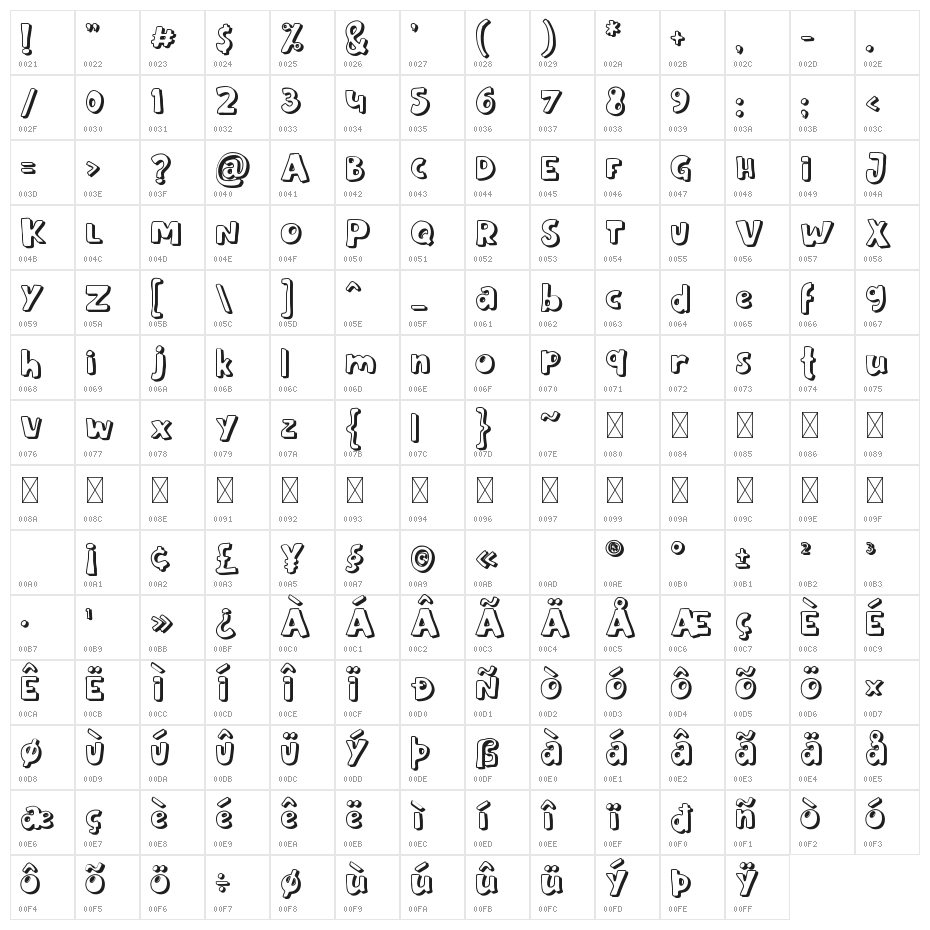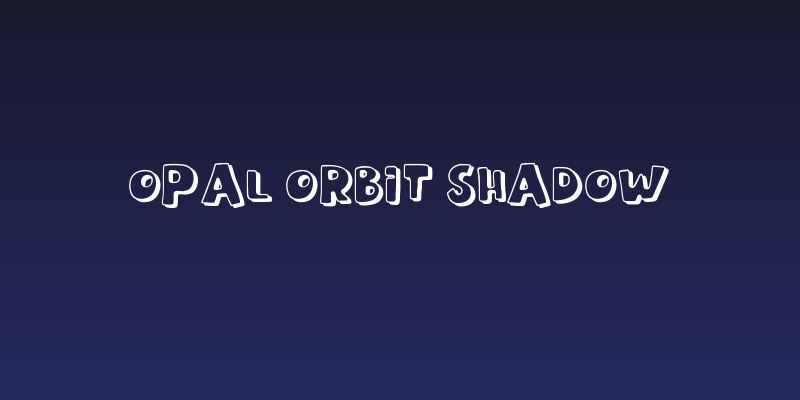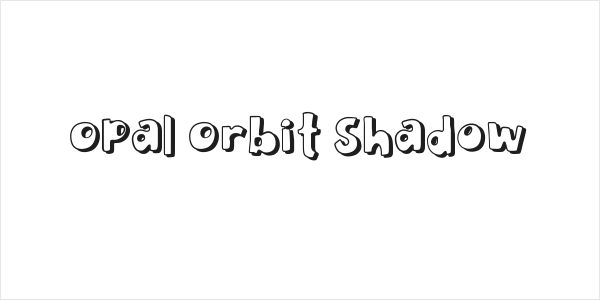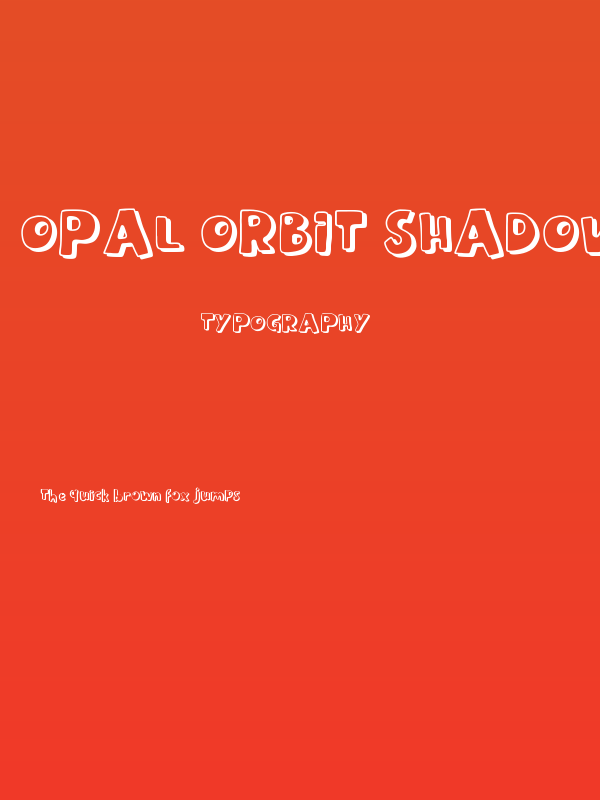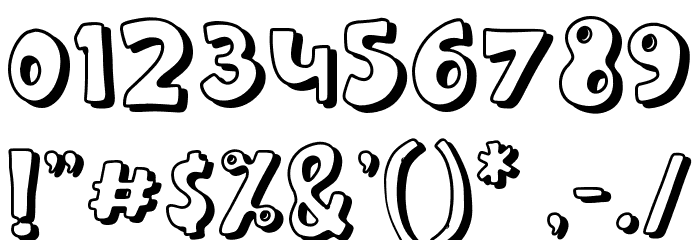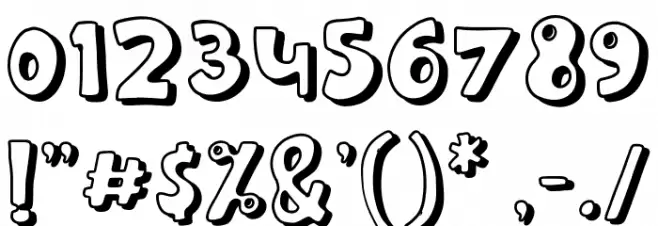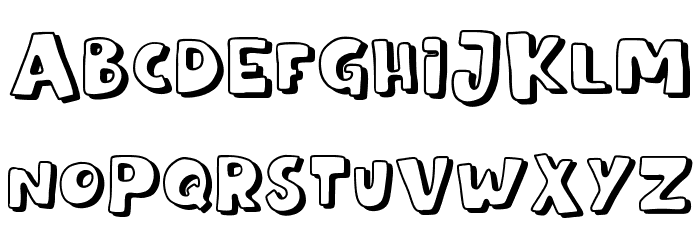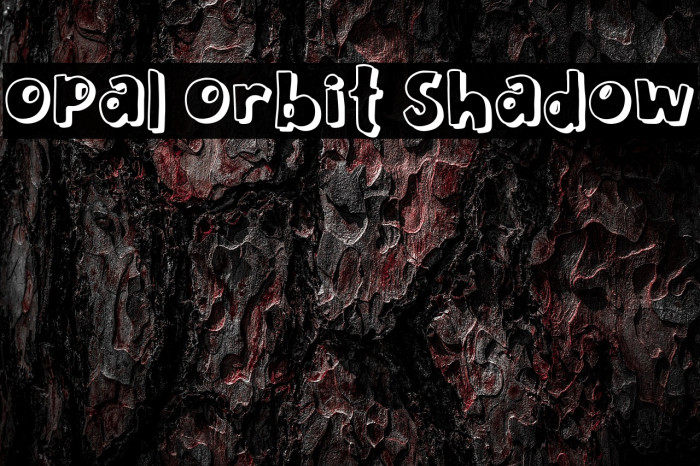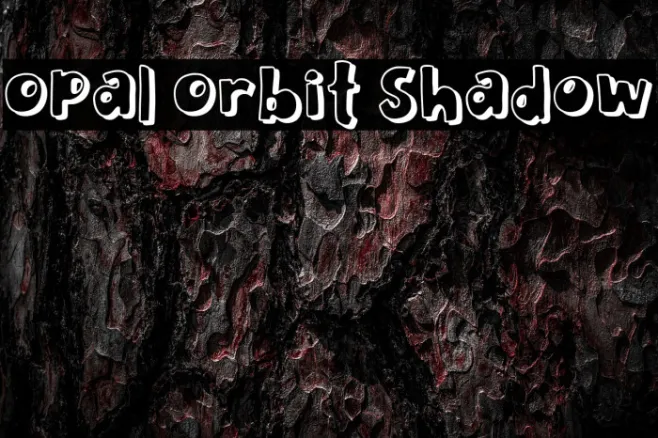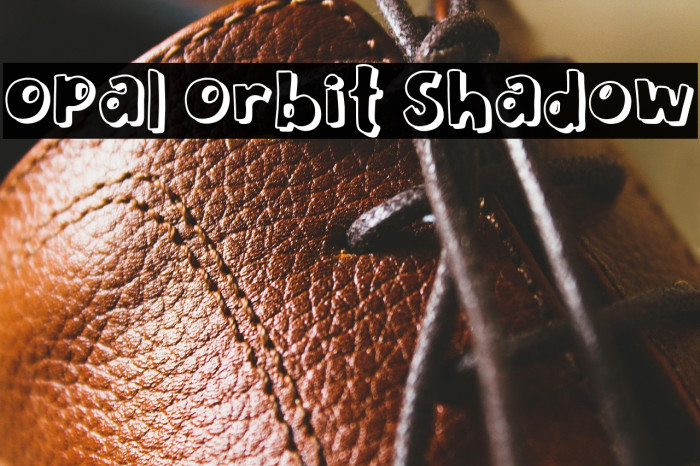
Opal Orbit Shadow Font
Opal Orbit Shadow Description
This playful and bold font features a shadow effect that gives it a three-dimensional appearance. The characters are rounded and slightly irregular, adding a whimsical and fun vibe. The uppercase and lowercase letters maintain a consistent style, with thick strokes and a bold presence. The numbers and special characters follow the same design, ensuring a cohesive look across all text elements. This font is perfect for projects that require a lively and engaging aesthetic.
| Proposed Projects | Ideal for children's books, comic strips, playful branding, and eye-catching posters. |